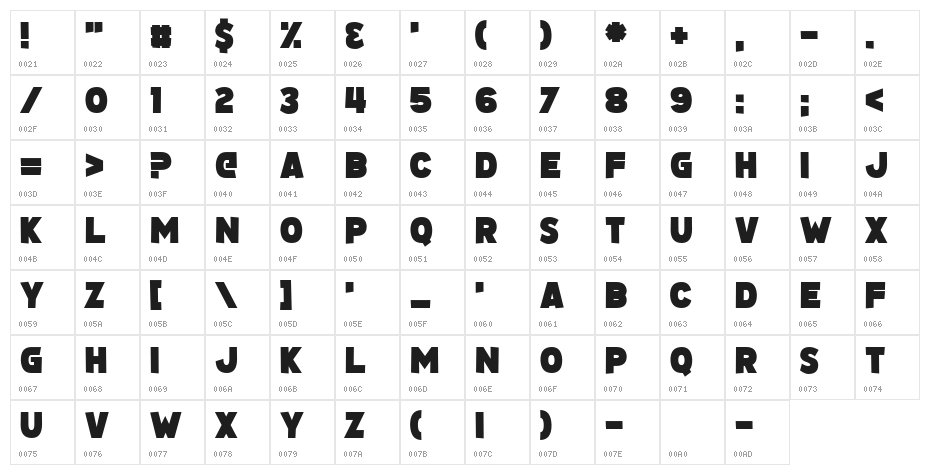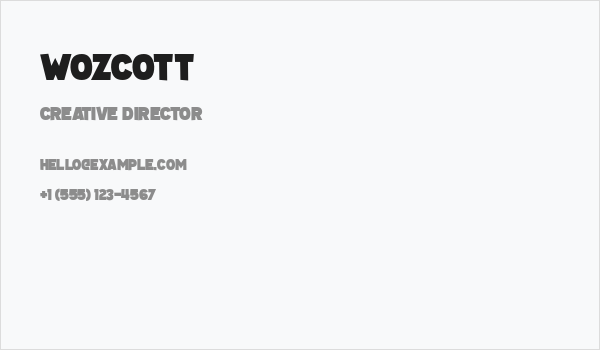
Wozcott Font
Wozcott Description
This bold and dynamic font features a playful and chunky design with a strong presence. The characters are heavily weighted, giving them a robust and impactful appearance. The uppercase and lowercase letters maintain a consistent style, with slightly exaggerated curves and angles that add a sense of movement and energy. The numbers and special characters follow the same bold aesthetic, ensuring uniformity across all elements. This font's thick strokes and solid forms make it highly legible, even at smaller sizes, while its unique style adds a touch of personality and flair.
| Proposed Projects | Ideal for posters, headlines, branding, and any project requiring a strong, eye-catching typeface. |